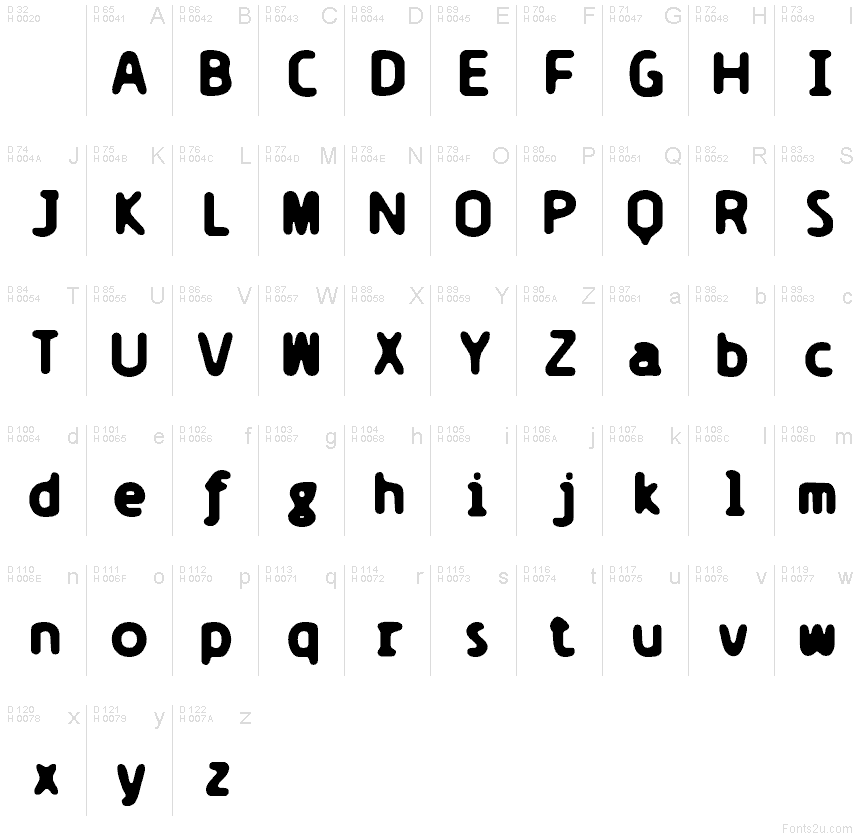
CSNicoleMonoDrawn-Regular Demo
CS Nicole Mono Drawn font by Craft Supply Co. is a free hand-drawn monospaced display font. Built within the CS Nicole Mono family, it trades the usual rigid mono feel for chunky, rounded strokes and soft, inky curves that look scribbled with a fat marker. The rhythm is steady and grid-true, but every letter has a gentle wobble that adds warmth without sacrificing alignment.
Using CS Nicole Mono Drawn, headlines snap into neat columns while still feeling human—great for coding-themed posters, playful branding, zines, sticker sheets, game titles, packaging, and signage. This free font shines at large sizes where its blobby counters and cushioned terminals show off. Pair with a crisp geometric sans for body copy, and tighten tracking slightly when setting oversized words.